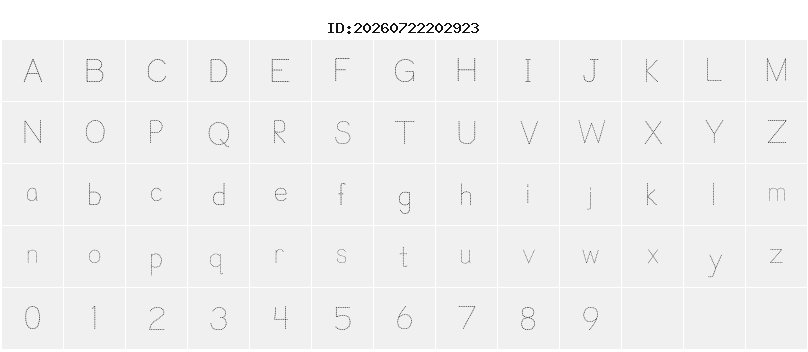
Mv Jadheedh Trace Preview
• Font Name: Mv Jadheedh Trace
• Designer: Ibrahim Jadheedh Ahmed
Mv Jadheedh Trace.ttf is a modern, elegant sans-serif font designed for ultimate readability and visual harmony. Perfect for branding, headlines, web design, and print materials.